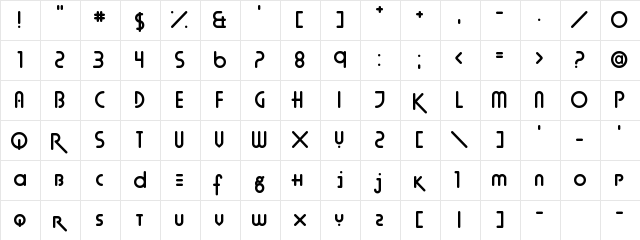
Techno Agony Regular Font Preview
Techno Agony Regular
Techno Agony Regular Font Details
| Designer | AM |
Design Context for Techno Agony Typeface
Techno Agony has a distinctly futuristic character, with geometric precision and clean angles that feel at home in technology, gaming, and sci-fi contexts.